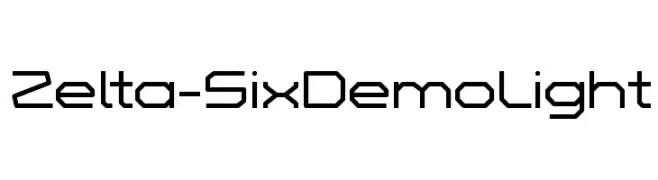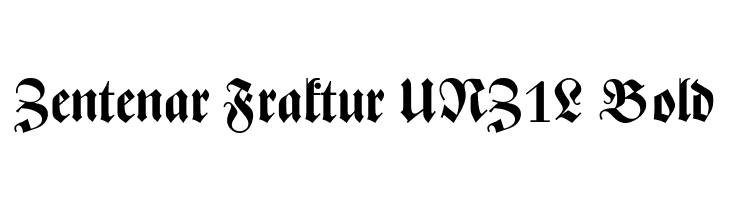
A geometric, futuristic font with angular and modular letterforms.
A futuristic, geometric, light italic font with angular lines and a tech-inspired style.
A bold, geometric font with angular, monolithic letterforms.
A dynamic, brush-style cursive font with medium contrast and artistic flair.
A decorative font with intricate, swirling patterns and a vintage flair.
A modern, geometric font with bold, angular lines.
An elegant script font with flowing, cursive letterforms and intricate details.
An elegant, flowing script font with intricate loops and swashes.
A traditional Blackletter font with intricate detailing and medieval charm.
A bold, intricate Blackletter font with ornate details and historical flair.